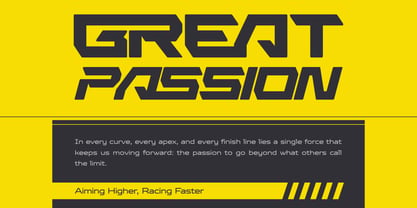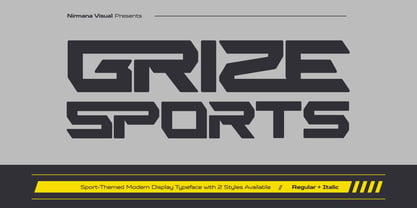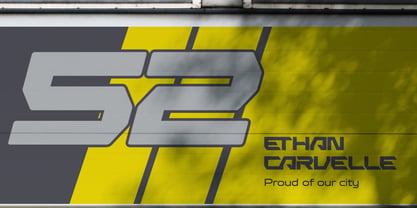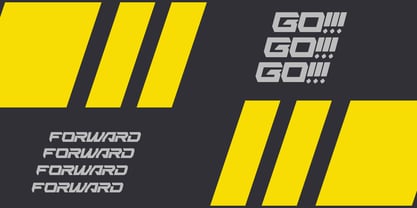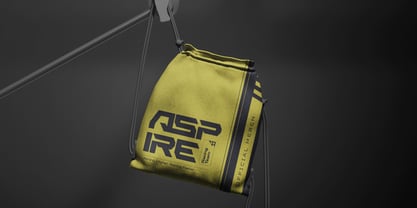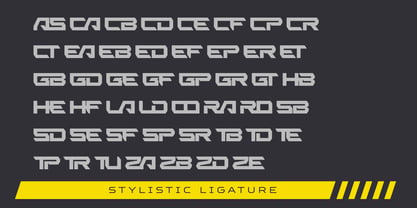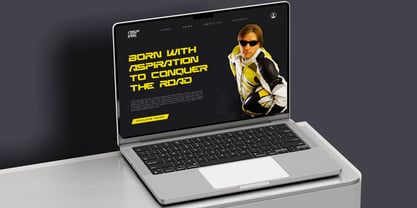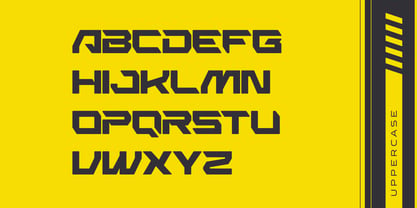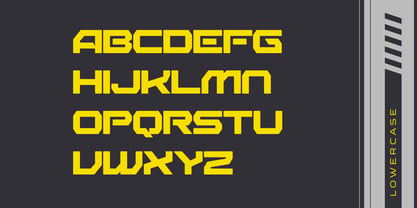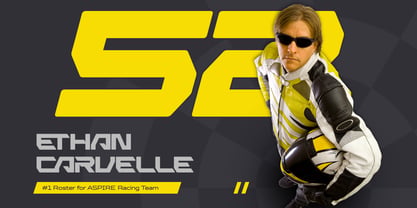
Grize Sports
by Nirmana Visual
Grize Sports is a bold automotive display font designed for speed, power, and modern branding. Built with strong geometric shapes and sharp cuts, Grize delivers a confident visual impact for automotive logos, racing teams, car wraps, motorsport branding, and performance-driven products. The Regular style provides a solid, aggressive structure, while the Italic version adds a dynamic sense of motion and acceleration. Perfect for logos, headlines, decals, and branding that demand energy, precision, and a high-performance character.